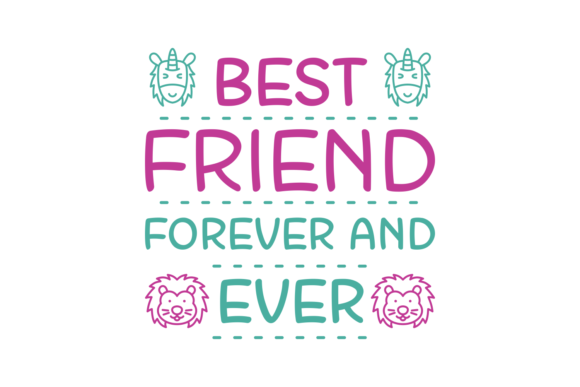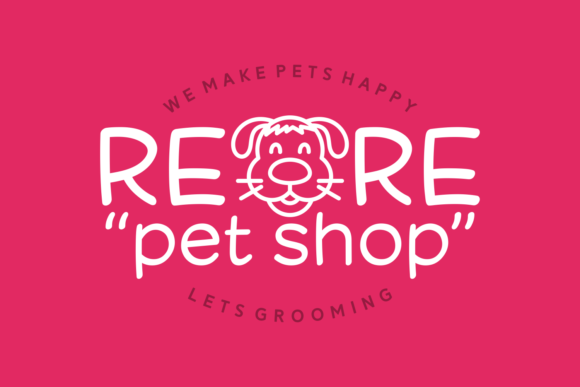
Macthinger Font
db-ku.com - Script & Handwritten -- The Macthinger is an amazing modern script font. It comes in a regular and italic style, which can be combined with almost any other typeface and still look awesome!